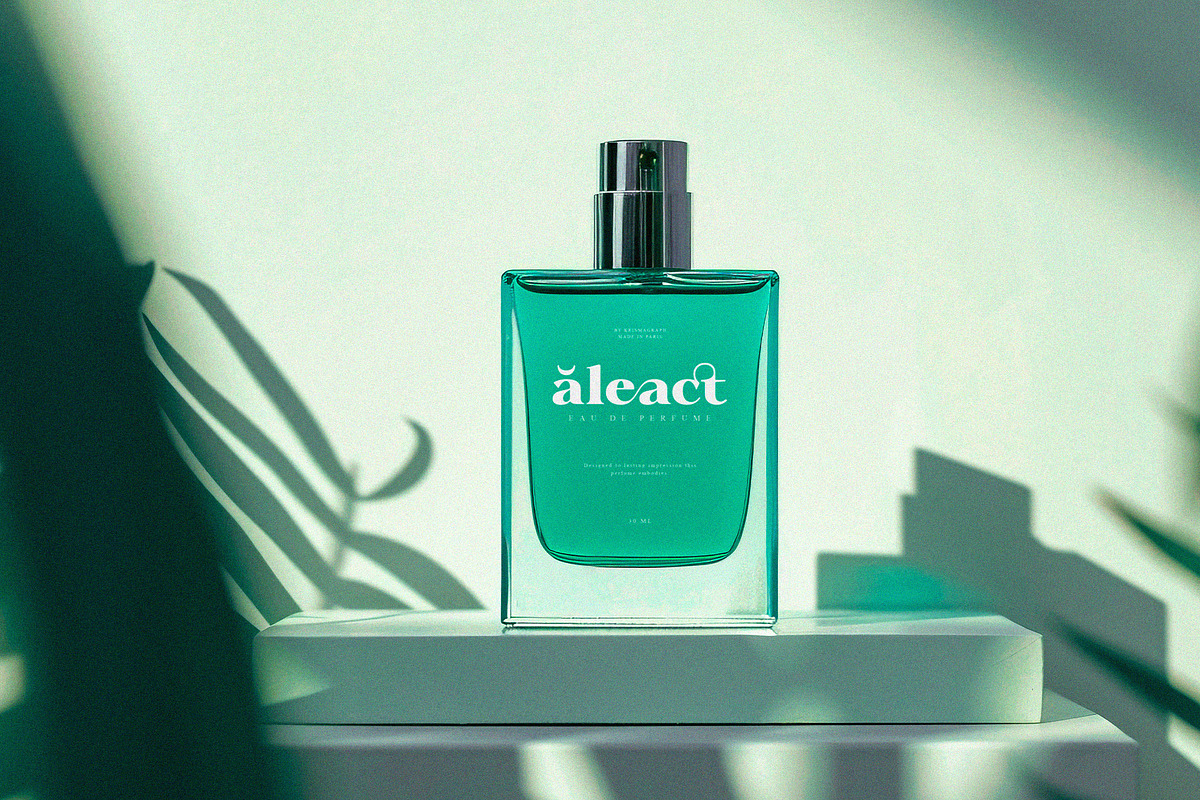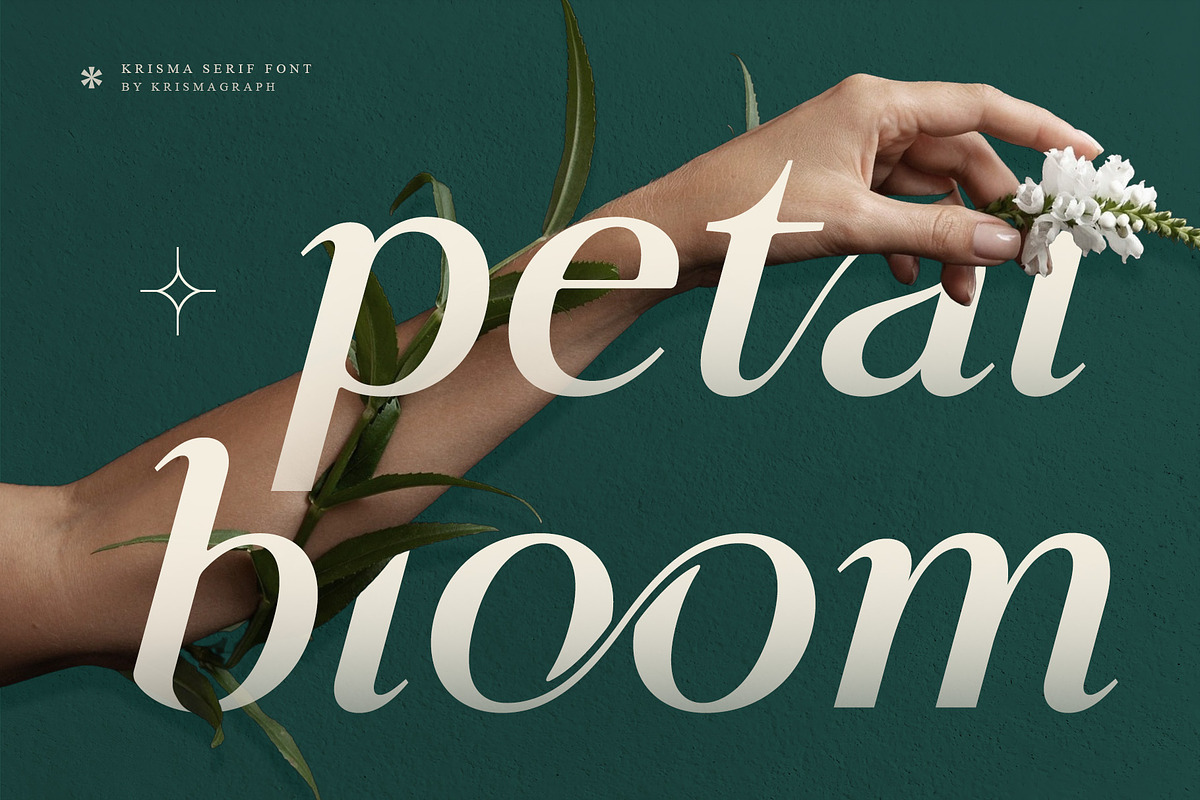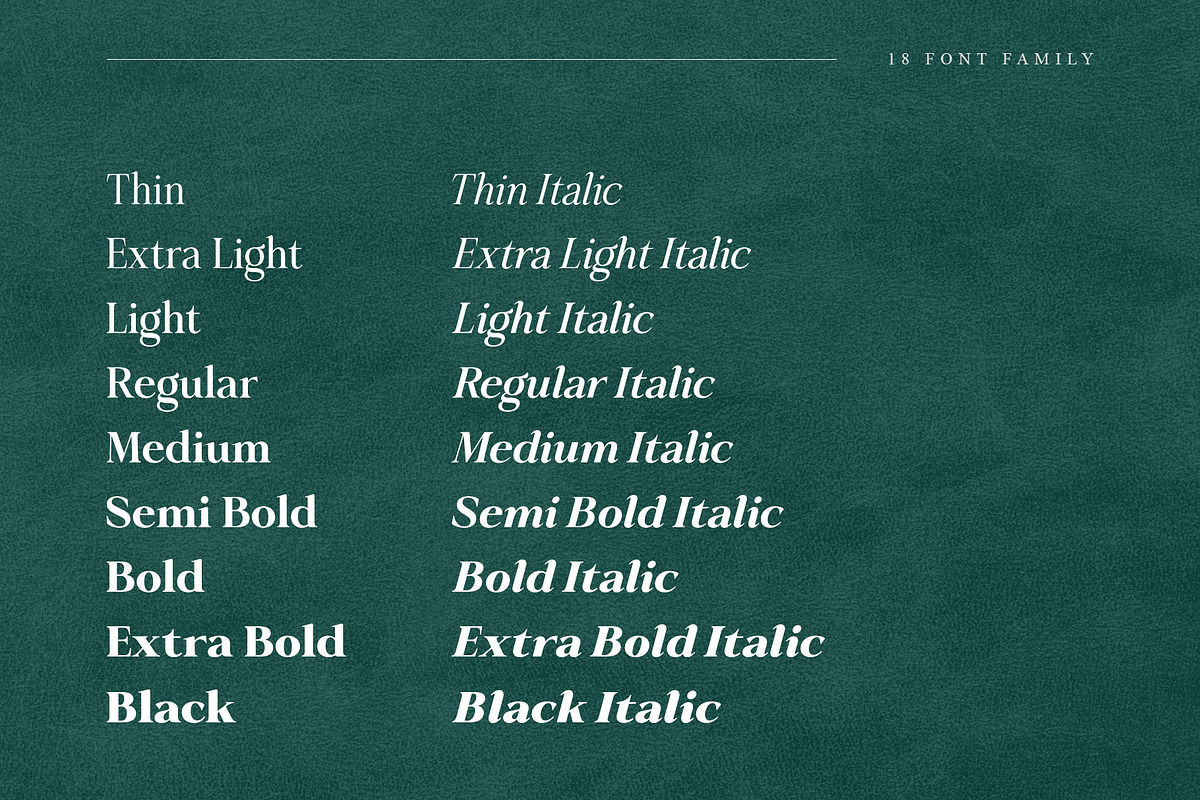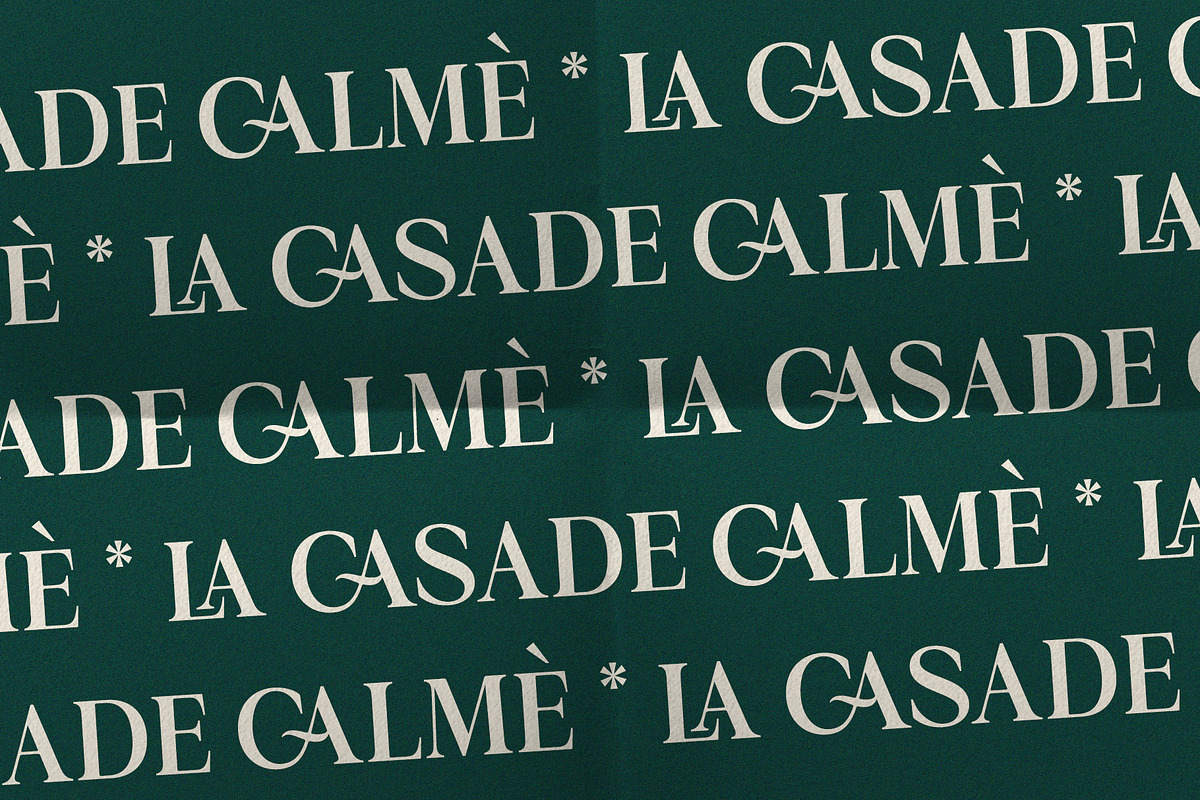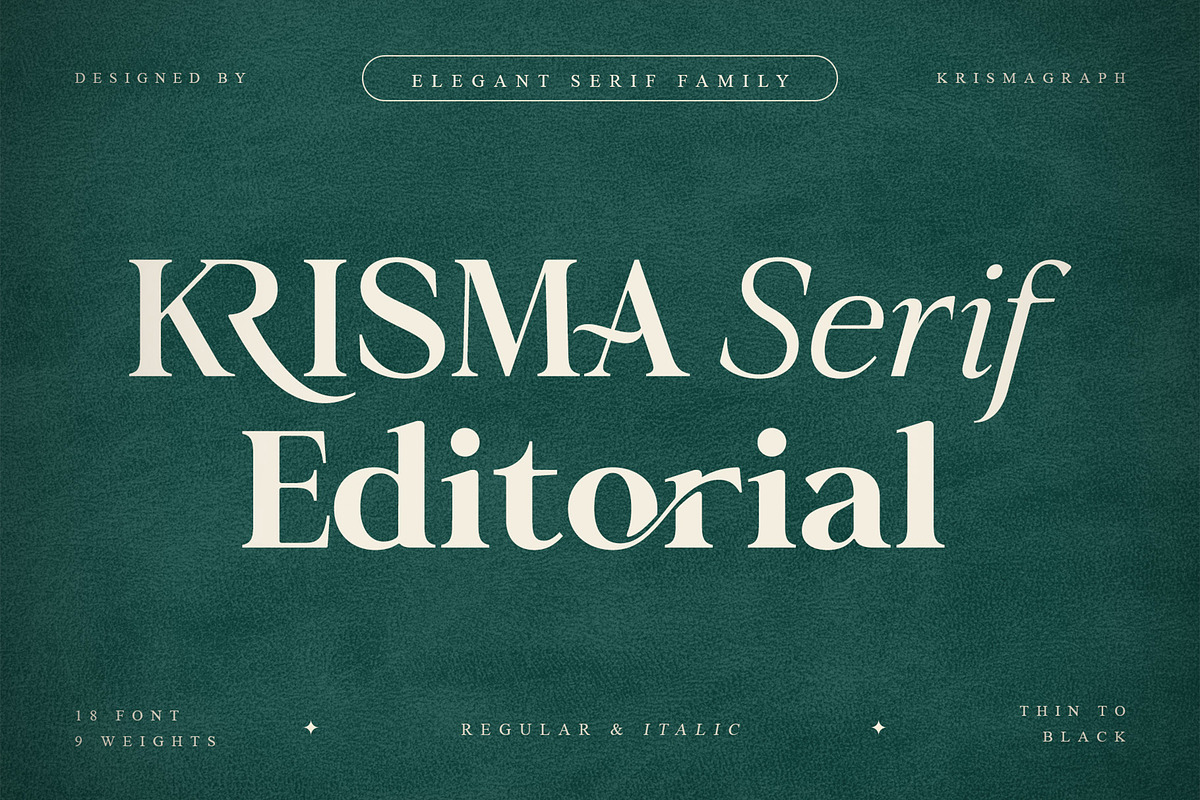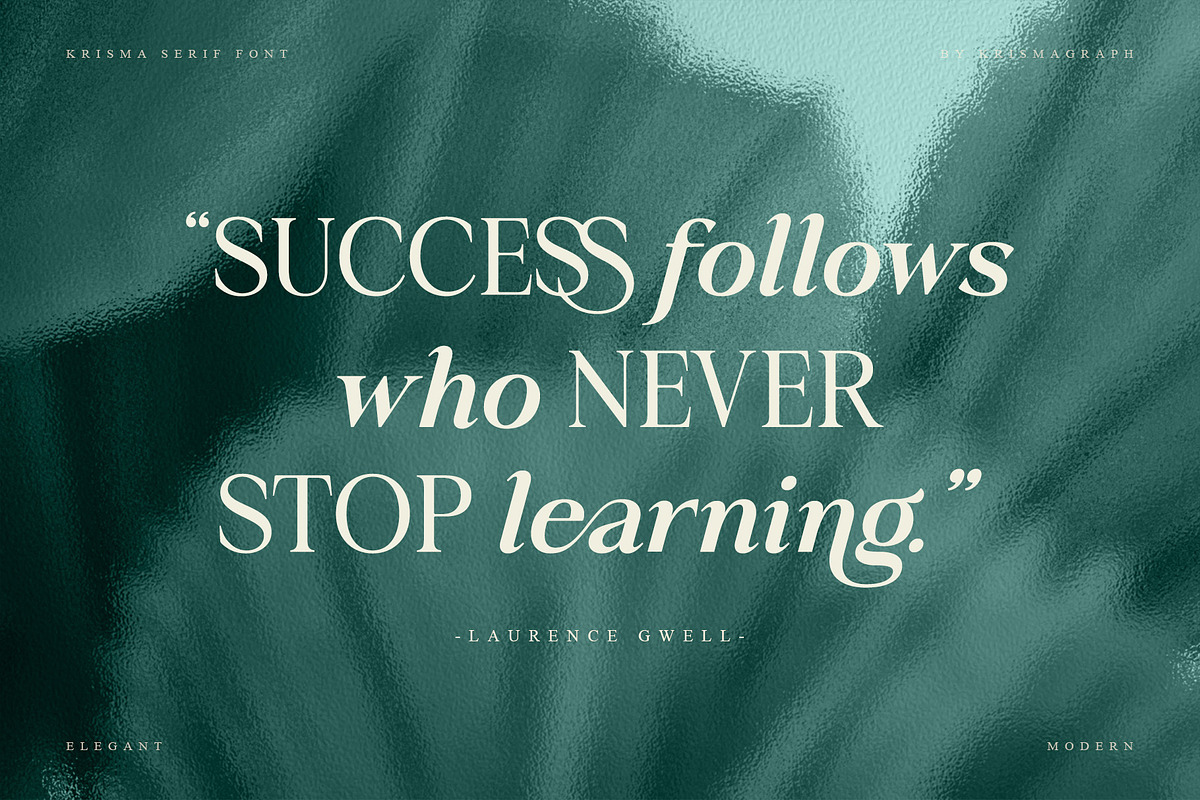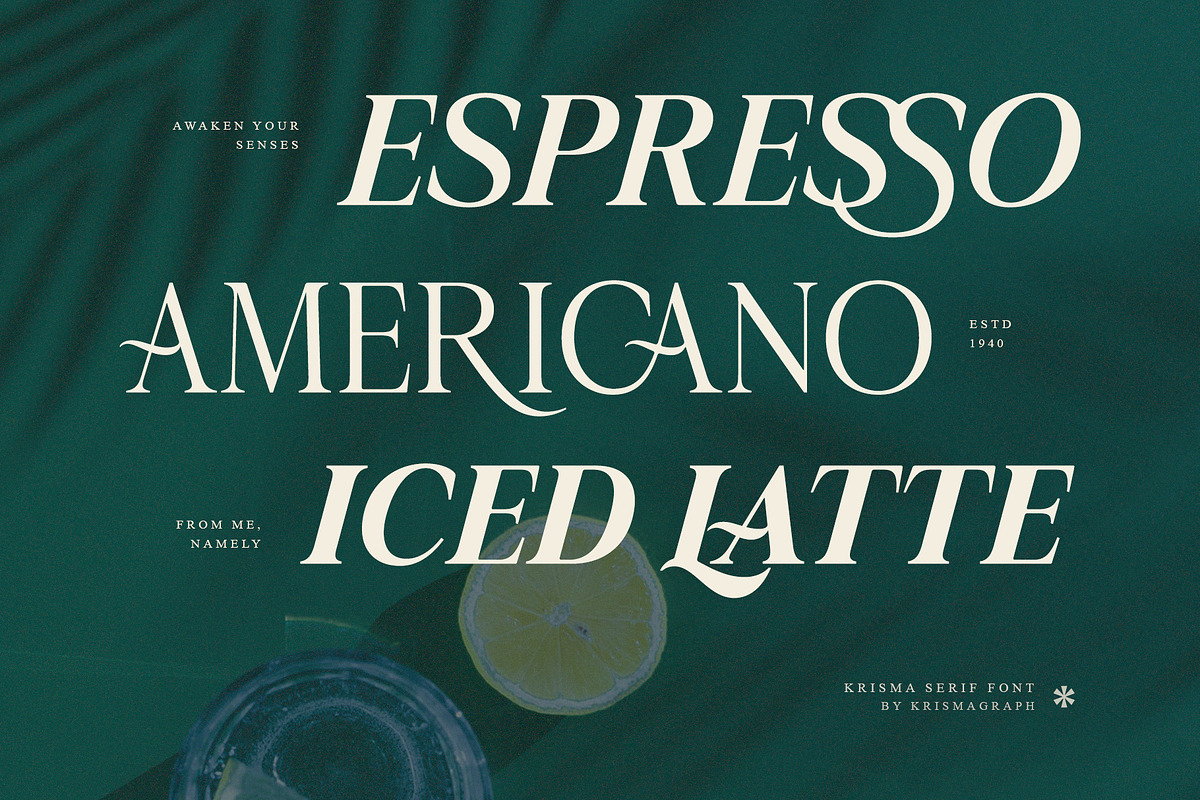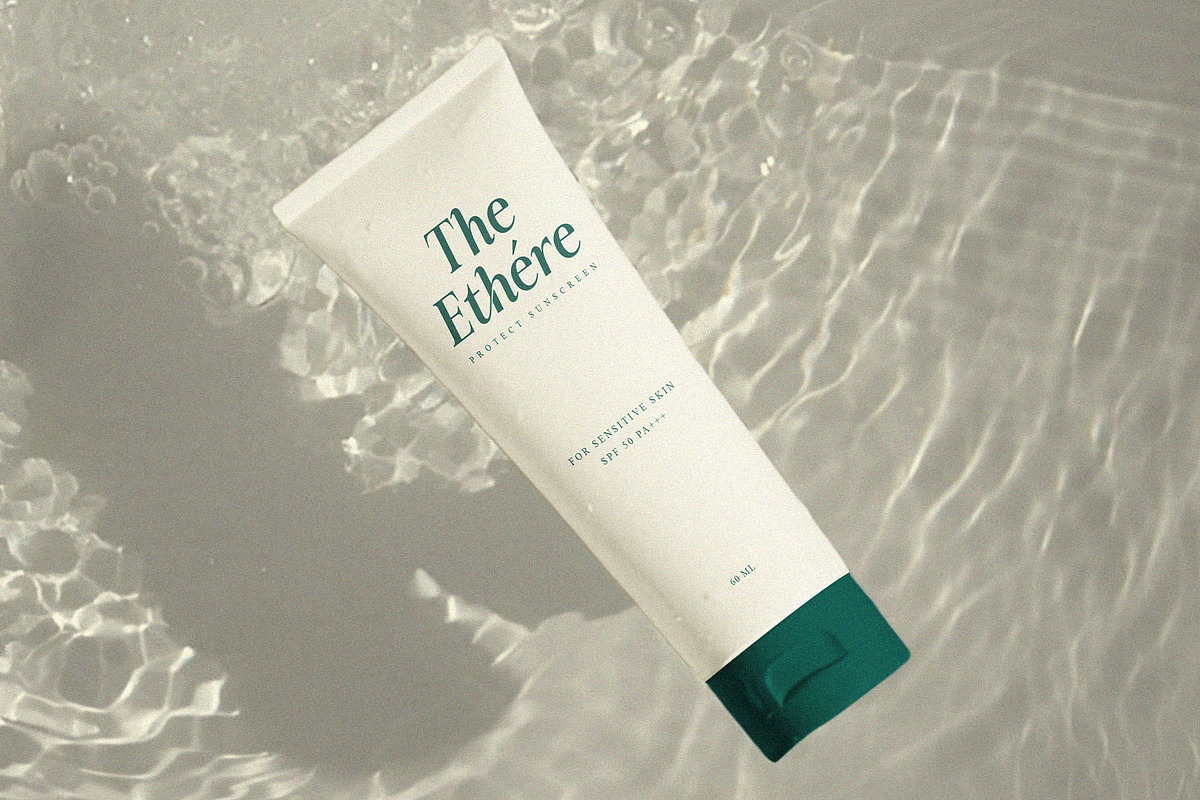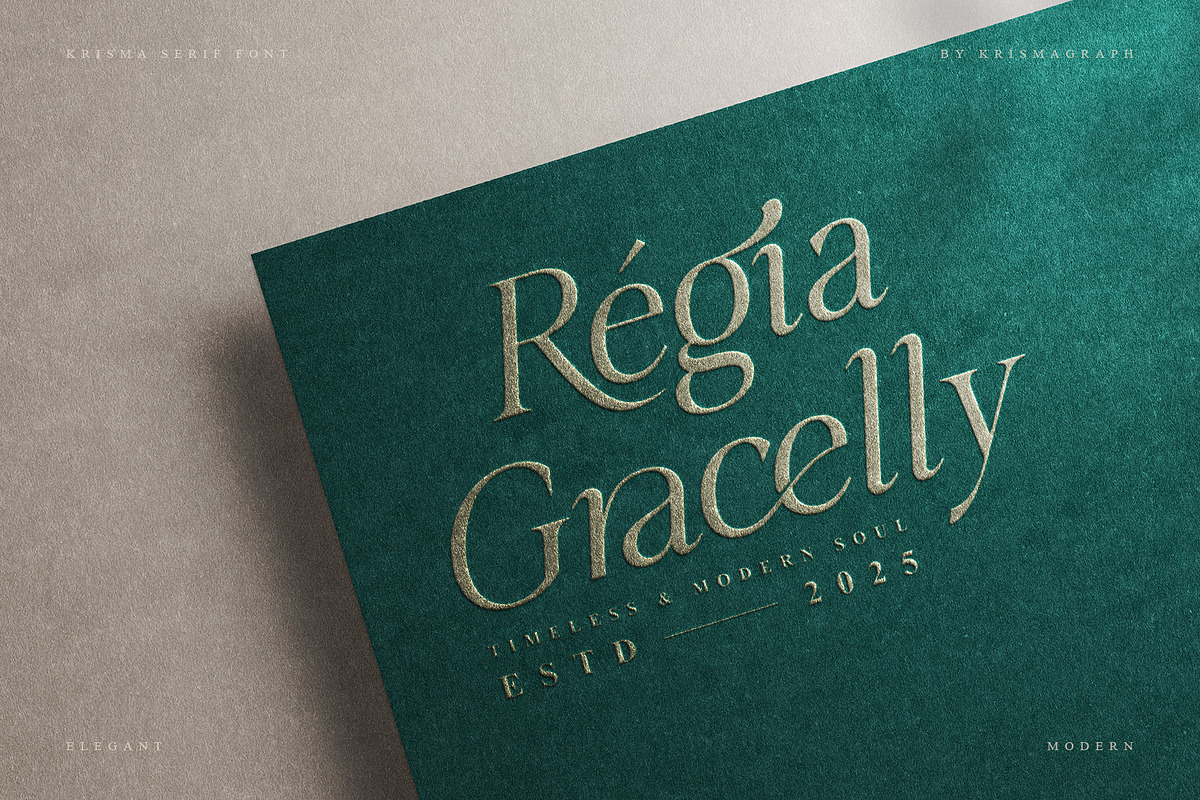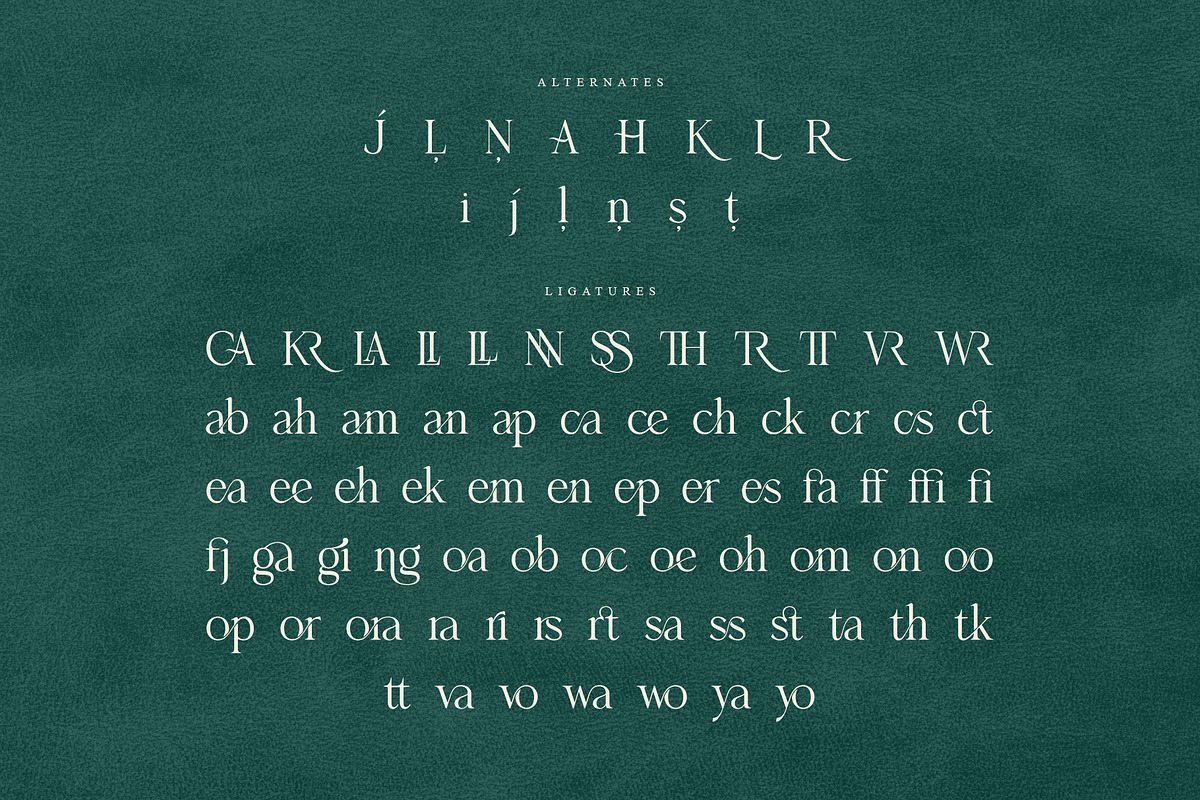
Krisma Serif - Elegant Serif Family
Krisma Serif Editorial is an elegant serif family crafted for professional designers and editors who value precision and style. With 18 fonts in 9 weights, from Thin to Black, including both Regular & Italic styles, this family offers a complete typographic system for modern editorial design, branding, and digital media.
Every curve and serif is thoughtfully shaped to deliver clarity and elegance in both headlines and body text. Perfect for magazines, book layouts, and sophisticated branding systems.
- Regular & italics